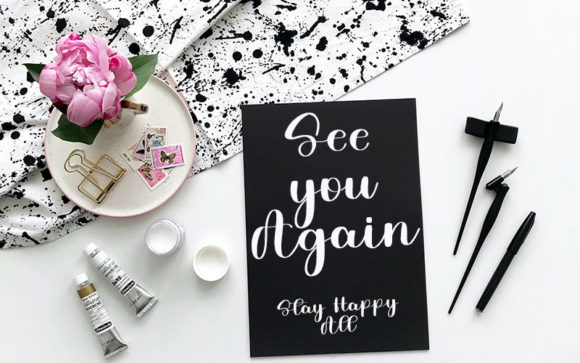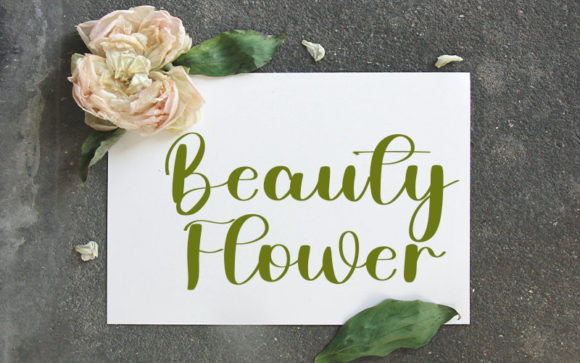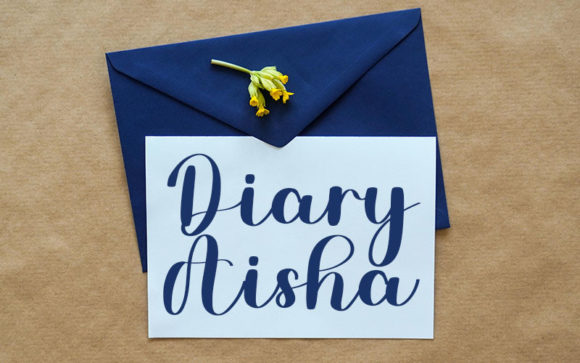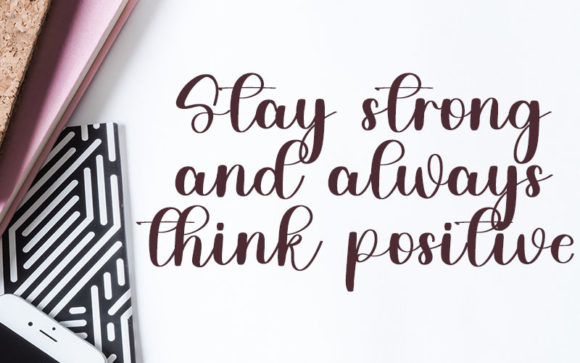
About Monthly Font
Monthly is a sweet, whimsical and flowing script font. Featuring characters that dance along the baseline, this font will add a luxury spark to any design project that you wish to create!